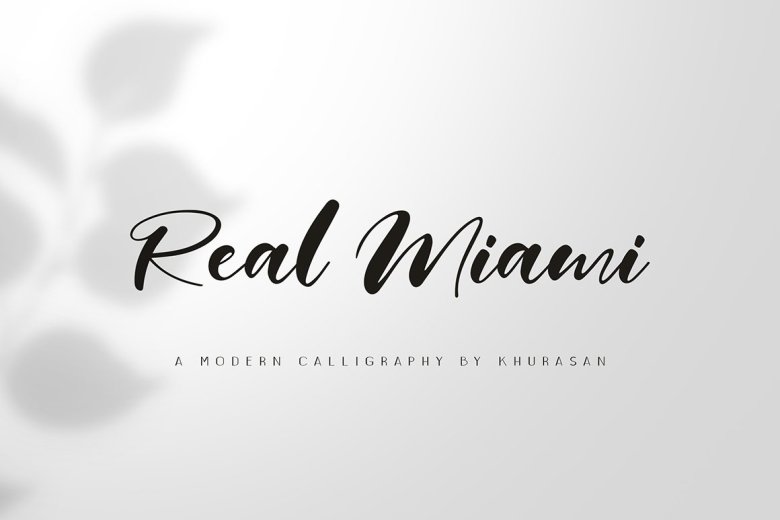
Real Miami Calligraphy Font
The Real Miami Script Font is a fun bold script font, fresh & modern style . Real Miami Script Font suitable for logo, branding, greeting card, poster and any design that you create.
Real Miami Calligraphy Font